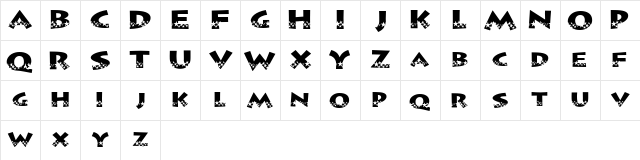
5 Starbound DNA Regular
Design Context for 5 Starbound DNA Typeface
5 Starbound DNA is a composed and adaptable typeface that performs quietly and consistently across a wide range of design contexts.